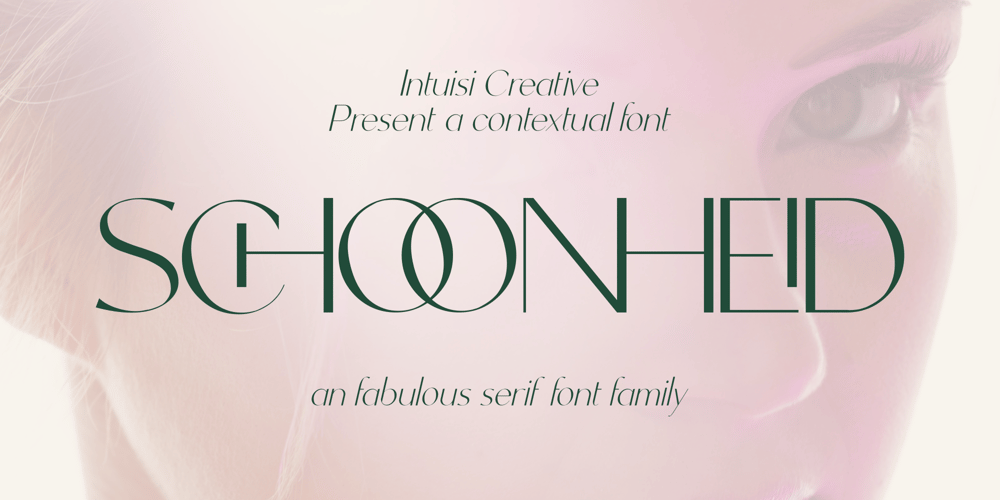
Schoonheid Font Family was designed by Sadat Fauzi, Intuisi Creative and published by Fauzistudio. Schoonheid contains 3 styles and family package options. Schoonheid is based on the thick and thin Gothic typeface that was popular in the US during the first half of the 20th century.Schoonheid Contextual Capitals has more than 100 ligatures, alternatives, and special characters consisting of uppercase letters. Implementing alternative Contextual features makes it easier for all people to use.Hope you enjoy.Intuisi Creative